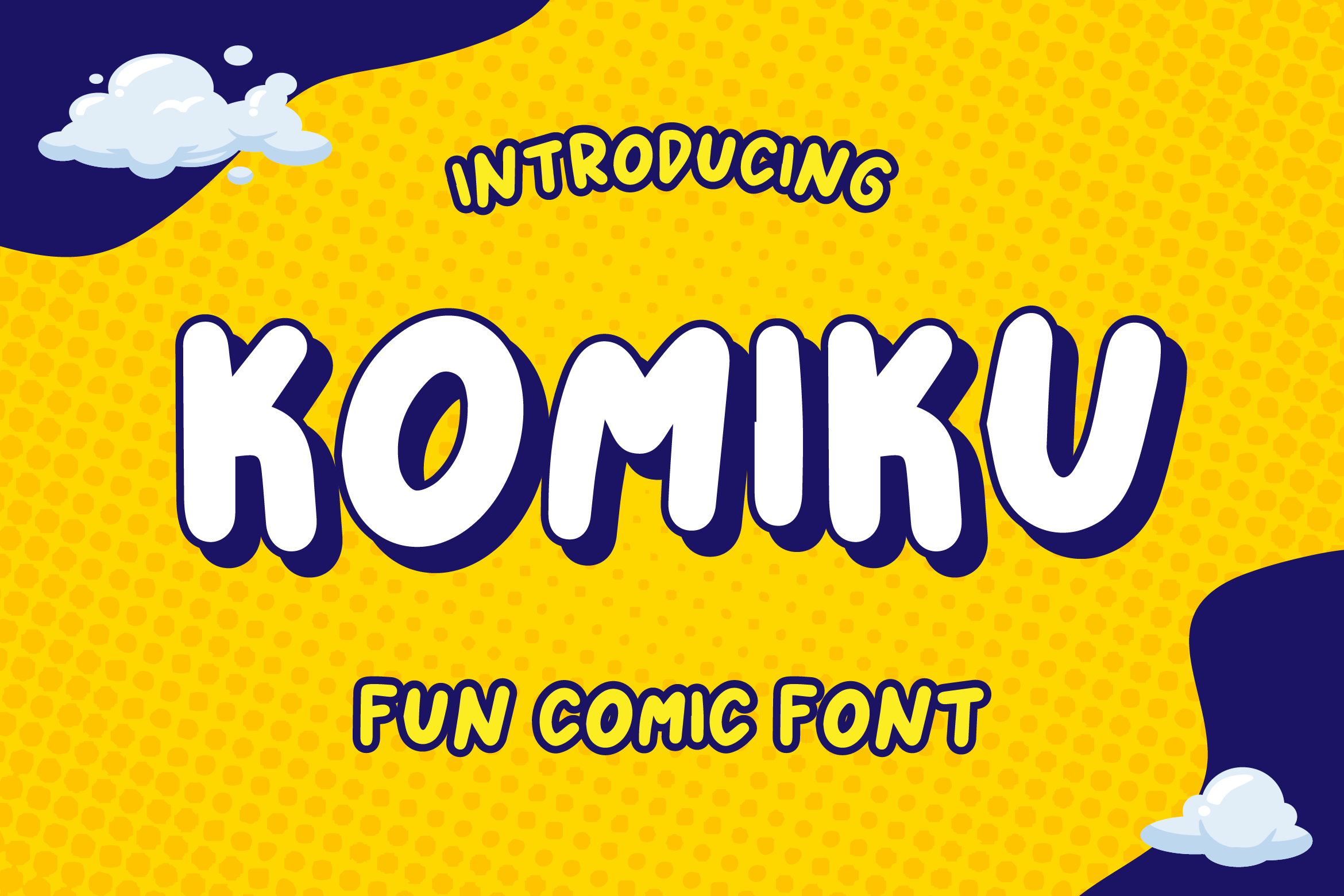
- Komiku Cheerful Fun Font
Komiku is a cheerful and lively font designed to bring joy and creativity to your projects. With its rounded shapes, bouncy letters, and playful design, Komiku is perfect for children’s books, educational materials, posters, game graphics, product packaging, and any project that needs a dose of fun.
Its friendly, cartoon-inspired style adds an energetic and approachable vibe, making it great for both print and digital designs. Komiku ensures readability while maintaining its quirky personality, making it suitable for headlines, titles, and short text blocks.
The font includes uppercase and lowercase letters, numerals, punctuation, and multilingual support for global use.
Add happiness and imagination to your work with Komiku — the fun kids font that turns every design into an adventure.